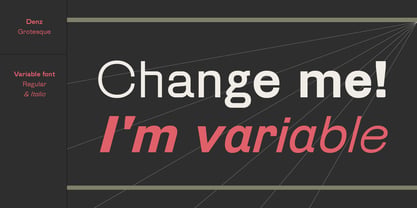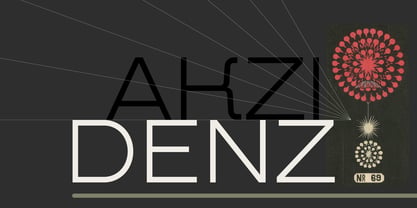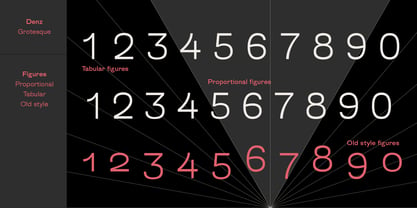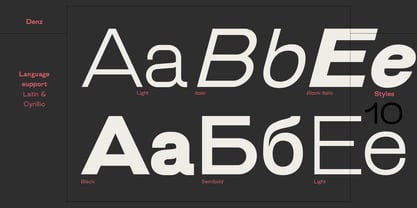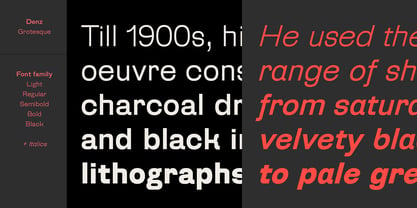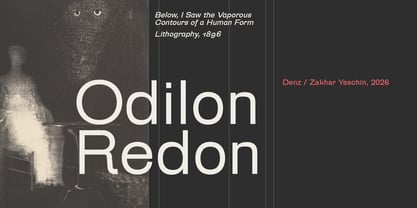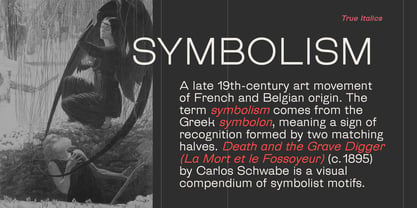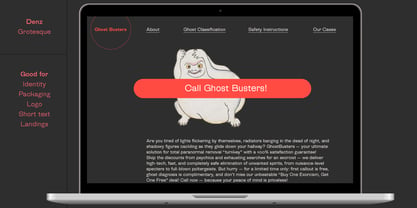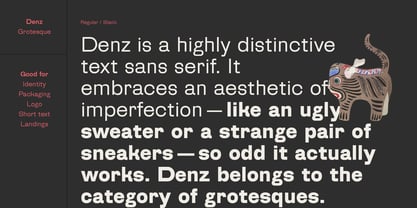
Denz
The Denz Font Family was designed by Zakhar Yaschin and published by ParaType. Denz contains 12 styles and family package options. More about this family
Denz is a highly distinctive text sans serif, inheriting all the quirks of the Rublenaya typeface. It embraces an aesthetic of imperfection — like an ugly sweater or a strange pair of sneakers — so odd that it actually works.
A bit of history and character. Denz belongs to the category of old grotesques. As the name suggests, these were the first sans serif designs to appear in the history of type. Their distinctive features include closed or semi-closed forms, a tail on the lowercase a, slight ornateness or irregularity in their shapes, and an overall warm, human feel.
Denz is no exception. It works best in expressive short-form text (especially with a contemporary, ironic tone), as well as in typography that echoes the late 19th and early 20th centuries.
Style system. The typeface includes five upright styles ranging from Light to Black, along with true italics. In addition, there are two variable fonts: upright and italic.
Character set. The typeface supports over 200+ languages, including extended Cyrillic.